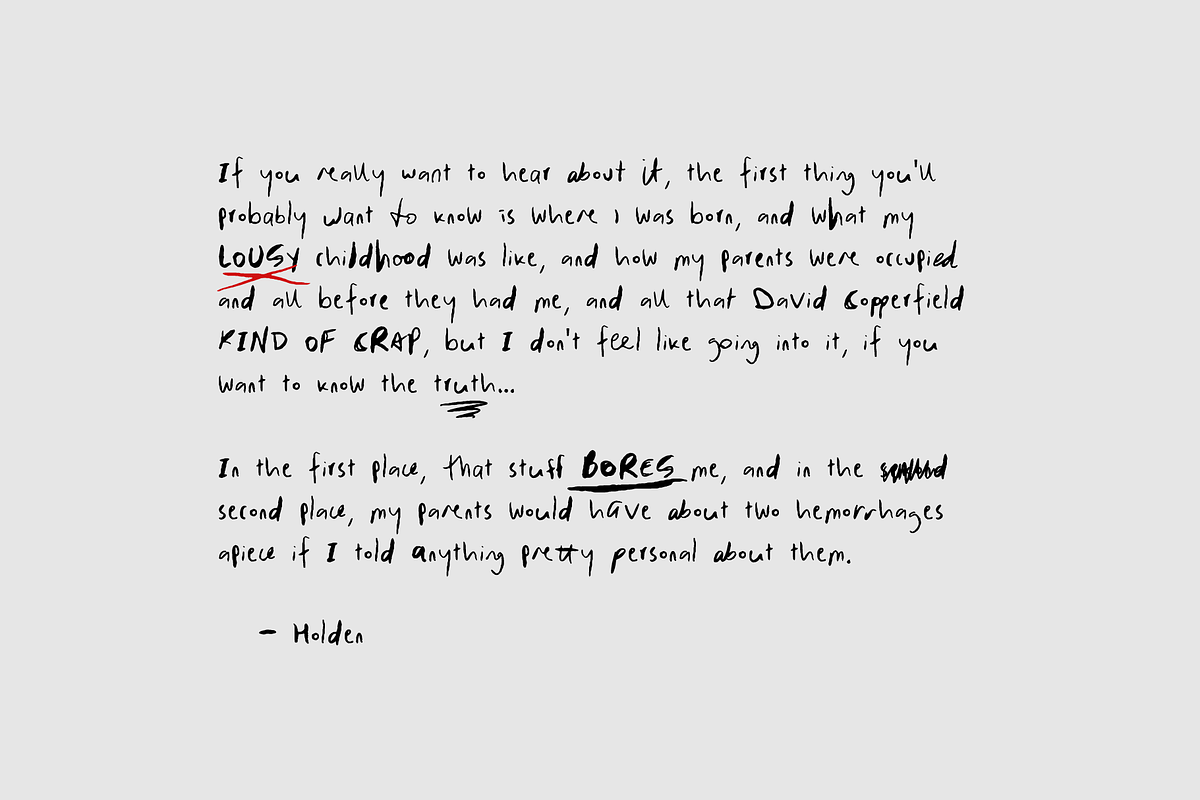
Manic is an erratic some-caps some-lowercase scrawl… aka handwriting font. Messy and realistic. Hand-drawn and transformed into a font for all your manic typography needs. You can use for watermarks on photography, quotes, branding, business cards and many other design projects.
It contains 100+ ligatures including double letter combos for both uppercase and lowercase characters, so you can make whatever you are creating as wild and unique as you need.
- 100+ ligatures
- Standard english characters
- Non-english accented characters